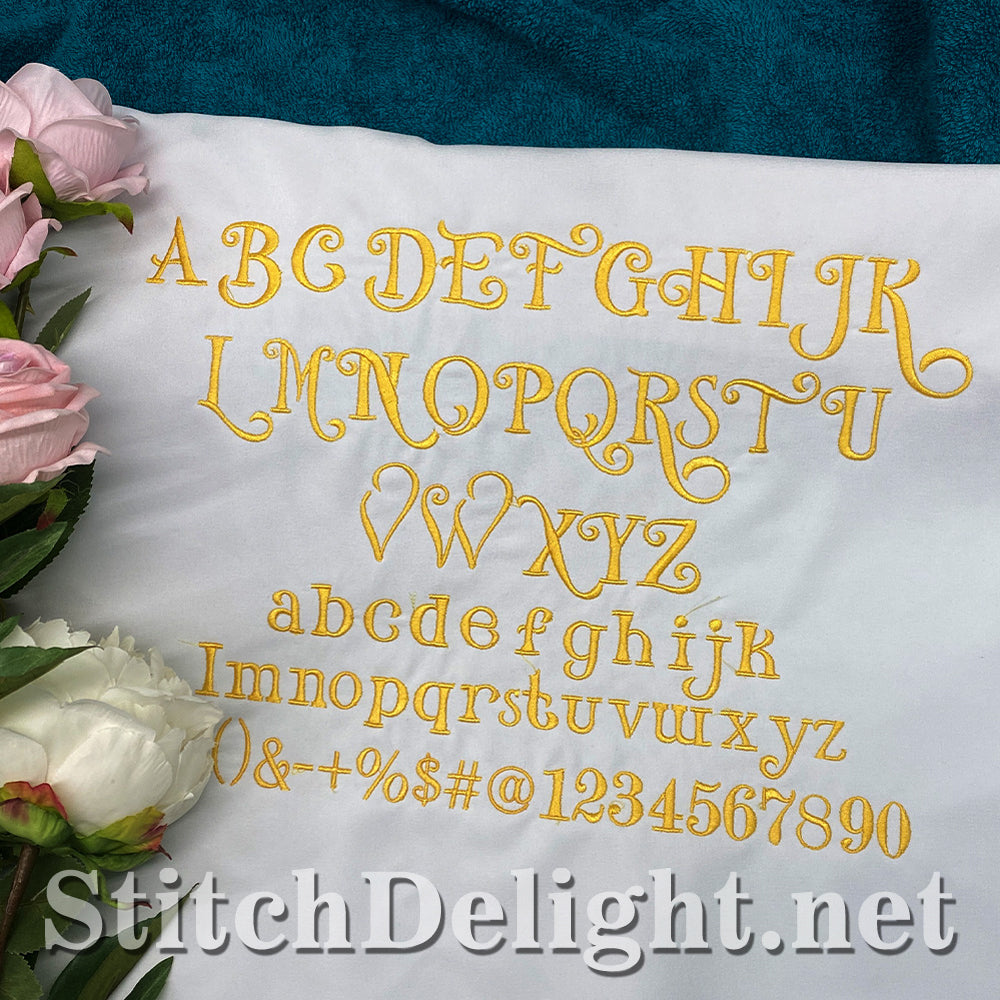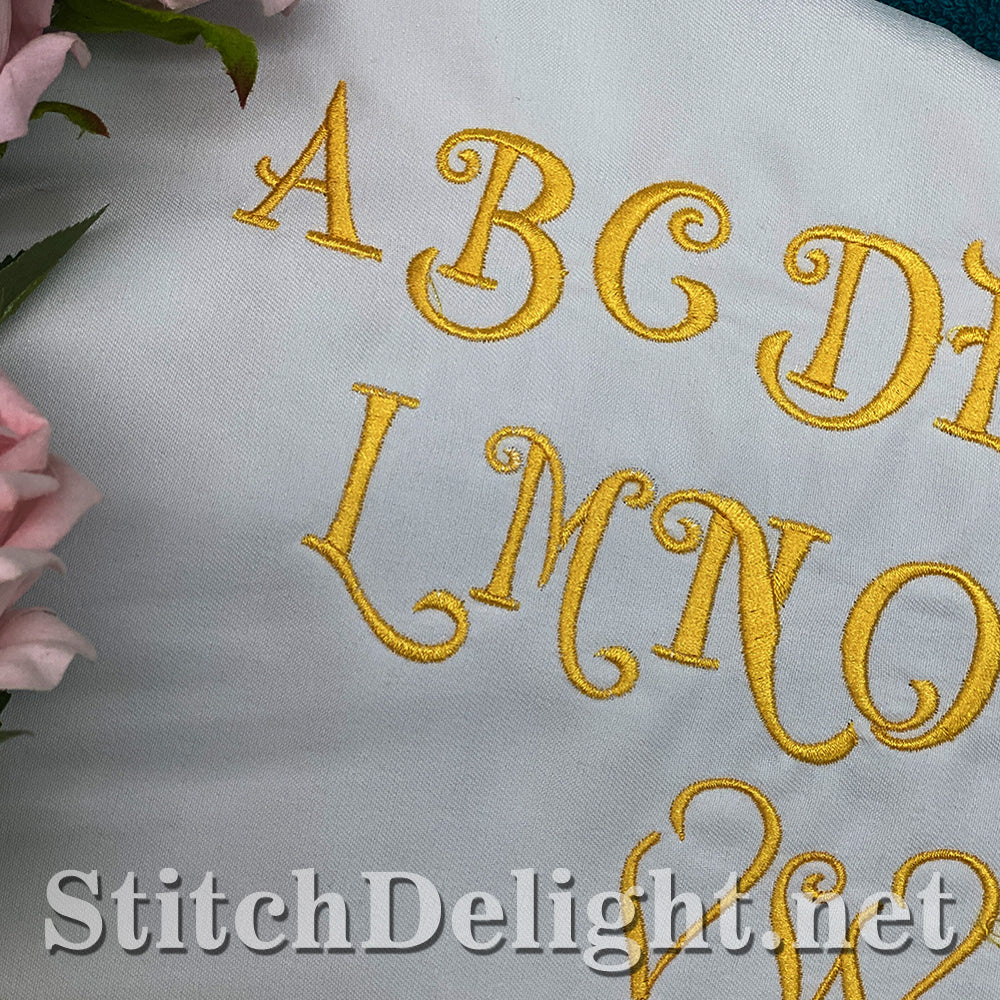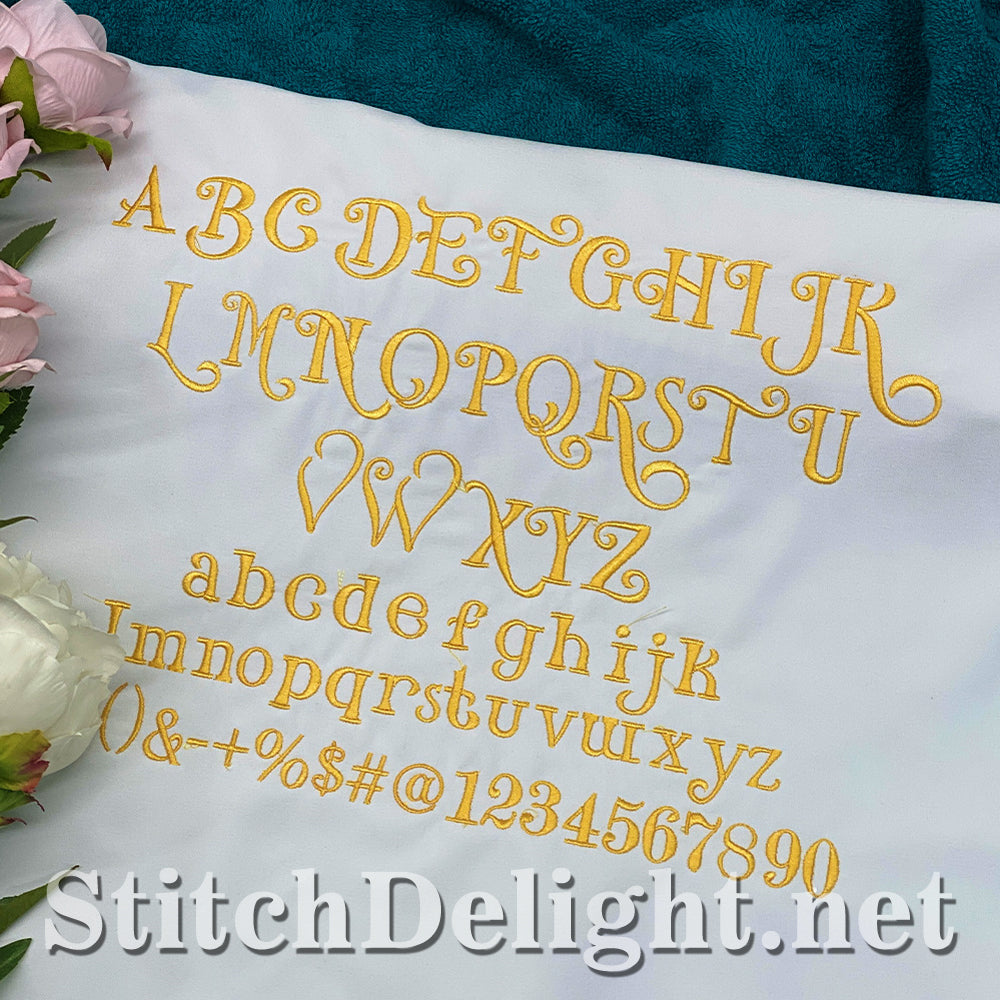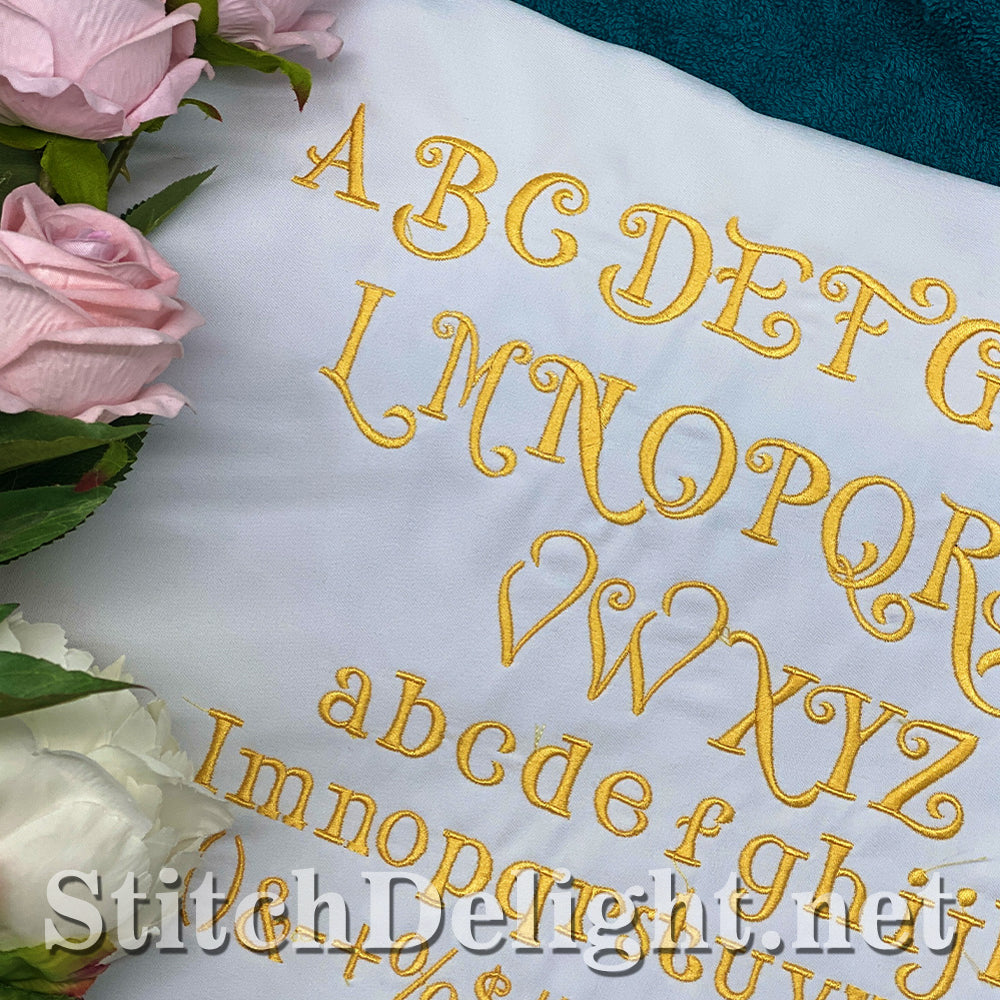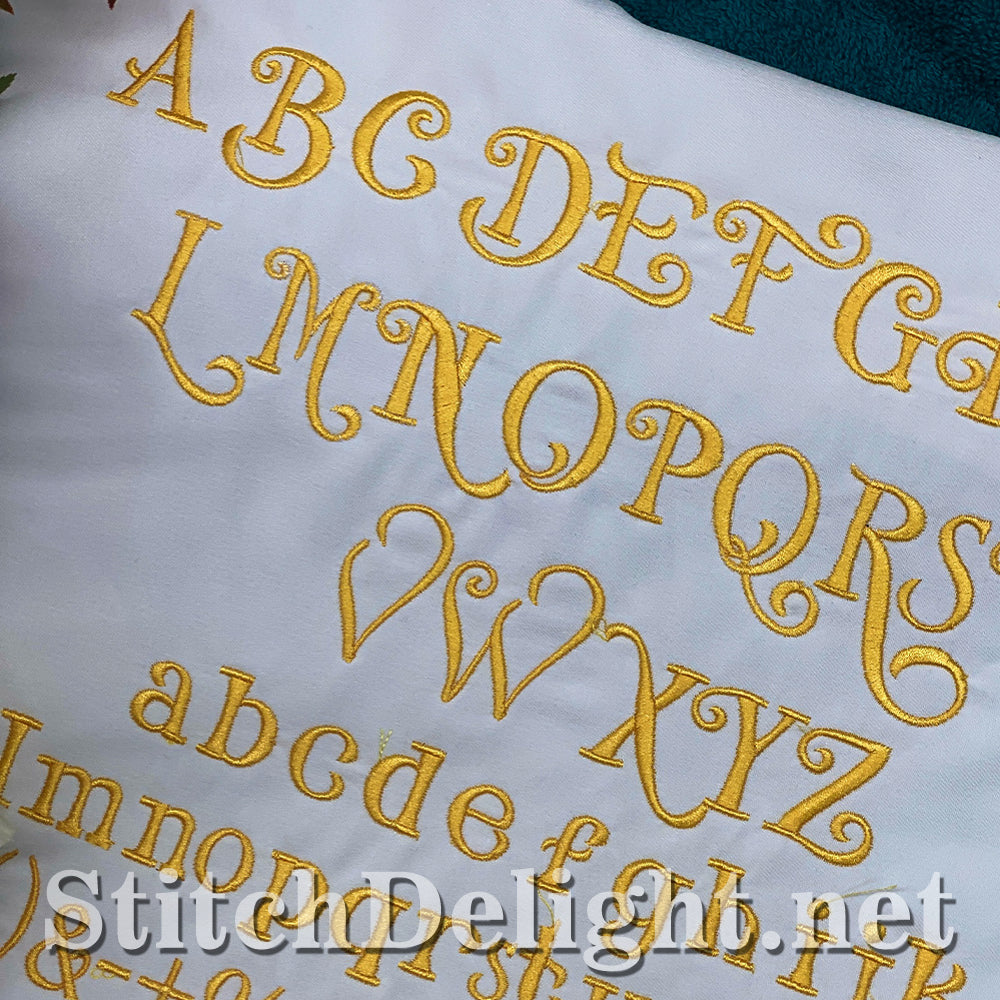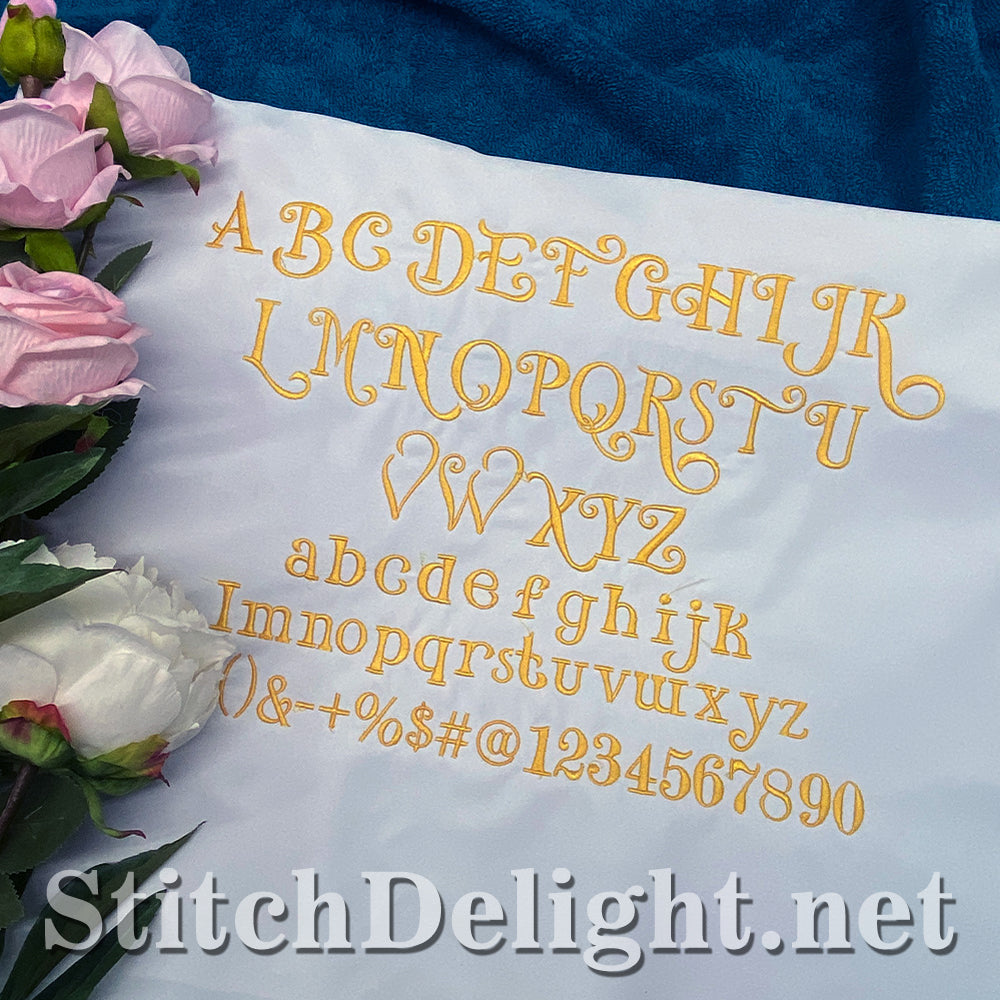
SDS5499 Little Cloud Nine Font
Looking for an enchanting font for a special project? Look no further, you've found exactly what you're looking for!
With an average height of 0.8" for numbers and lowercase letters and 1.5" for uppercase letters, this font is perfect for all your small text needs. This is also the same font we used in SDS5502 Enchanting Birth Announcement.